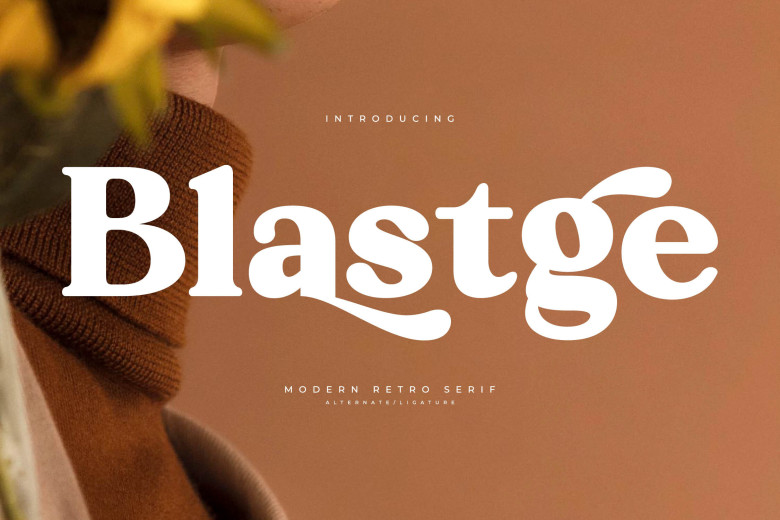
Blastge is a stylish serif font that effortlessly marries elegance with modernity. Featuring clean lines and well-balanced proportions, its smooth lines and balanced proportions make Blastge an excellent choice for editorial designs, logos, branding or signage projects. Additionally, its timeless appeal and versatility elevate any project with class and sophistication.
Blastge Serif Font